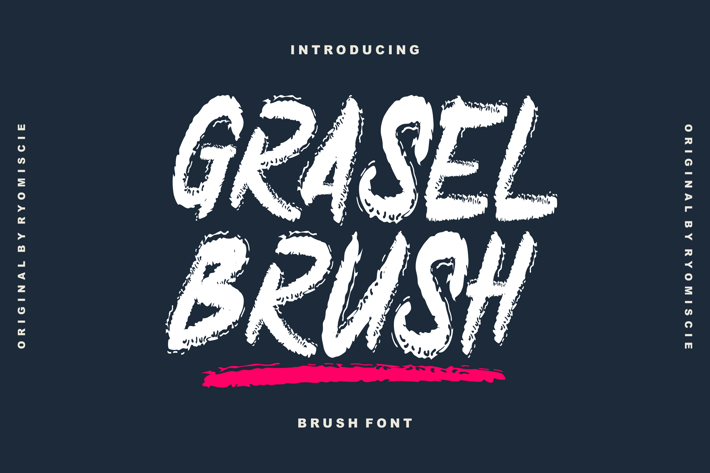
Grasel Brush - Handwritten Brush Font
Introducing our new product Grasel Brush Font - Handwritten Brush Font
Grasel Brush Font - Modern Font is a bold and authentic display font. The font is suitable for any branding project like logo,
t-shirt printing, esport, and many more. outstanding in a wide range of contexts.
* Grasel Brush Uppercase